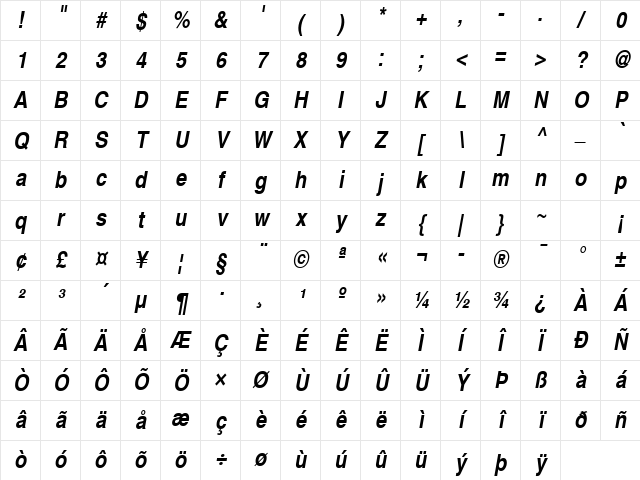
Complete Helvetica Narrow Bold Oblique glyph index. Displaying only characters natively supported by Helvetica Narrow Bold Oblique font.
Helvetica Narrow is a composed and adaptable typeface that performs quietly and consistently across a wide range of design contexts. The slanted form adds forward momentum and visual energy. Its bold stroke weight gives it real presence on the page. Its narrow stance lets it pack a punch even in space-constrained designs.
Pro Tip: Use Helvetica Narrow for emphasis, pull quotes, and subheadings where its slanted energy can add rhythm to the layout.